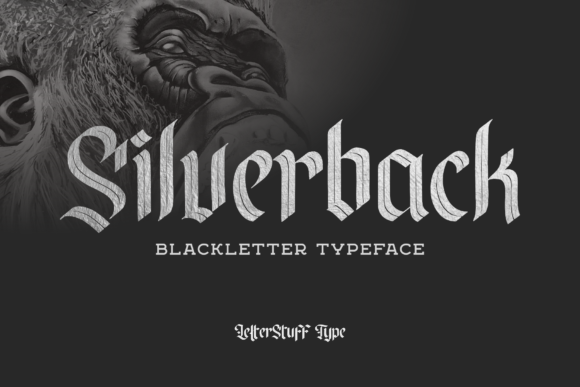
Unleash the Enchanting Charm of Silverback Font - A Masterclass in Blackletter Elegance
For those seeking a font that emanates a timeless allure, look no further than Silverback, the crown jewel in the realm of blackletter fonts. Each letterform is meticulously crafted with intricate details, exuding an aura of sophistication and grace that will elevate your designs to new heights.
With Silverback as your chosen font, prepare to transport your audience to a bygone era of chivalry and romance. Allow them to feel the weight of history as they behold the stately presence of each character, whether it's in your captivating logos, enchanting invitations, or soul-stirring posters.
Immerse yourself in the versatility of Silverback, a font that effortlessly adapts to a myriad of creative expressions. Whether you're crafting a vintage-inspired label, a spellbinding book cover, or an awe-inspiring social media campaign, Silverback possesses the inherent charm to captivate and enchant your audience.